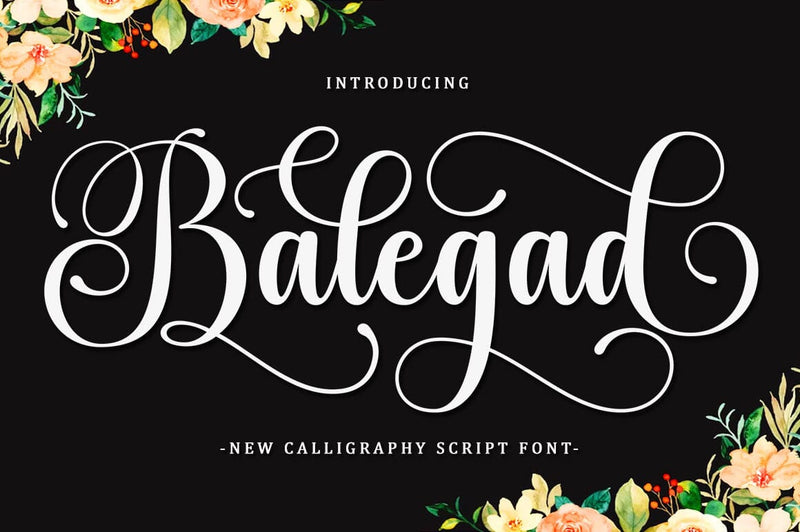
Balegad Script Font
Balegad Script Font is a very cute, elegant and unique script font. Expertly designed to become a true favorite, this font has the potential to take your creative ideas to the highest level!
Balegad is appealing because it's sleek, clean, feminine, sensual, glamorous, simple and easy to read, thanks to its many fancy lettering connections. I also offer a number of viable alternative styles for all letters. Classic style is very suitable to be applied in various formal forms such as invitations, labels, restaurant menus, logos, fashion, make up, stationery, novels, magazines, books, greeting cards/weddings, packaging, labels or all kinds of advertisements. for your purposes. . . . . . .